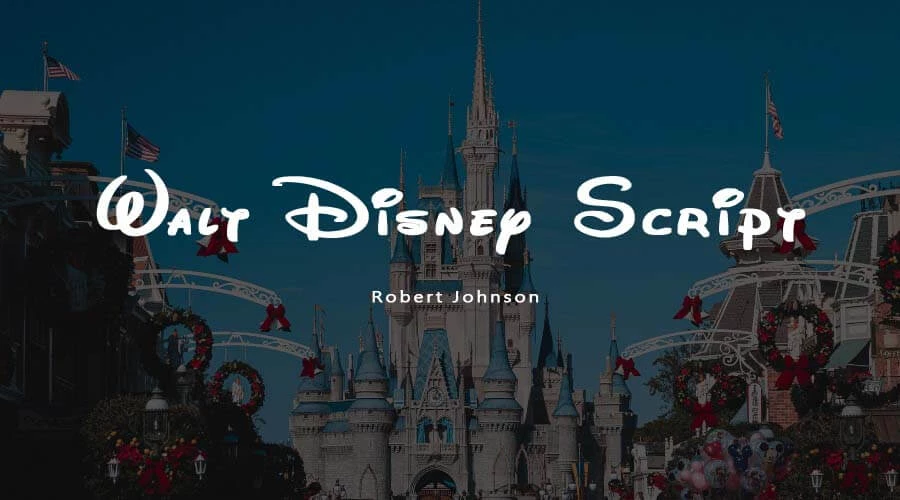
Walter Elias Disney is the founder of The Walt Disney Company (born on December 5, 1901). The name of the logo of Walt Disney Company is Walt Disney Script font designed by Robert Johnson.
Walt Disney Script also known as Disney font is a True-Type font with a regular style which is available for both PC or MAC. Its amazing look makes it more eye-catching. With big & small upper case alphabets and numbers, Walt Disney Script can be used both in a big and small screen. Lakhey Font, Billabong, Bonbon, and Wisdom Script are mostly similar to this.